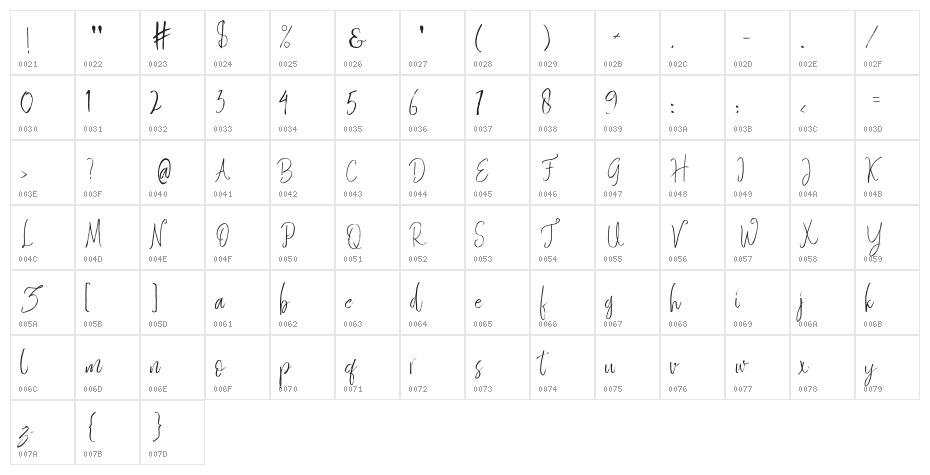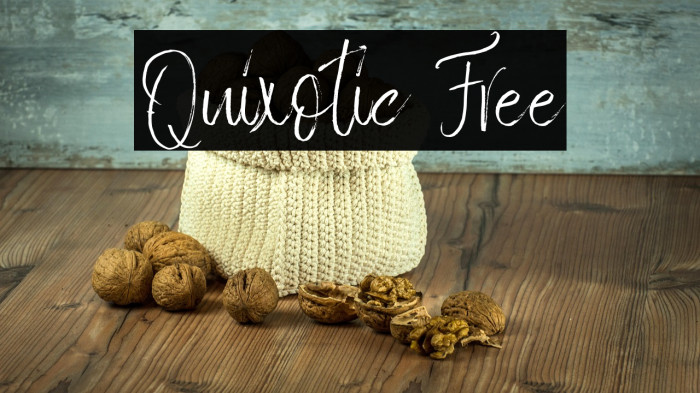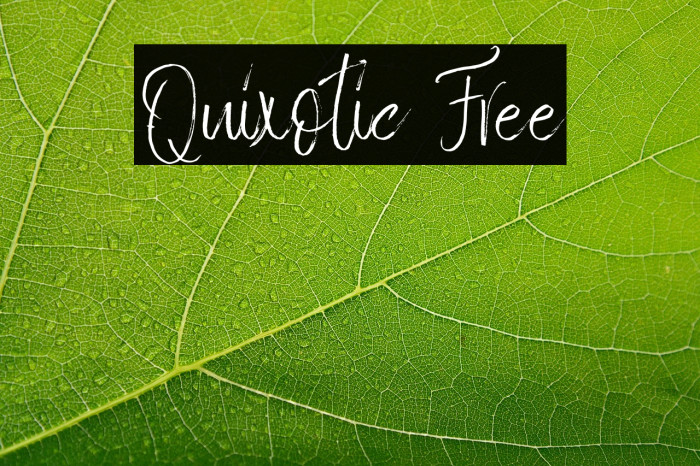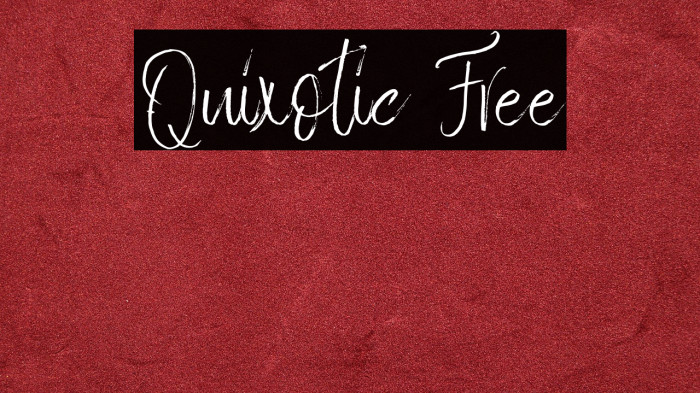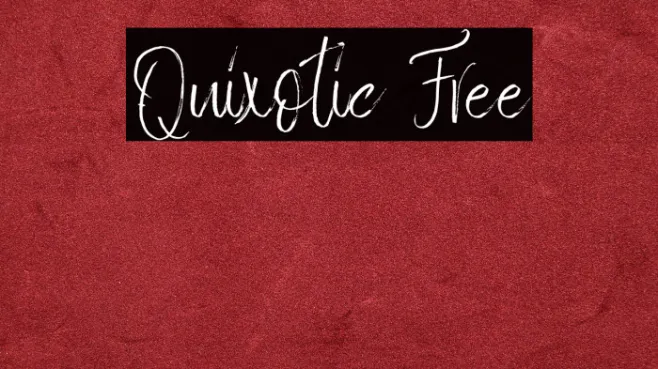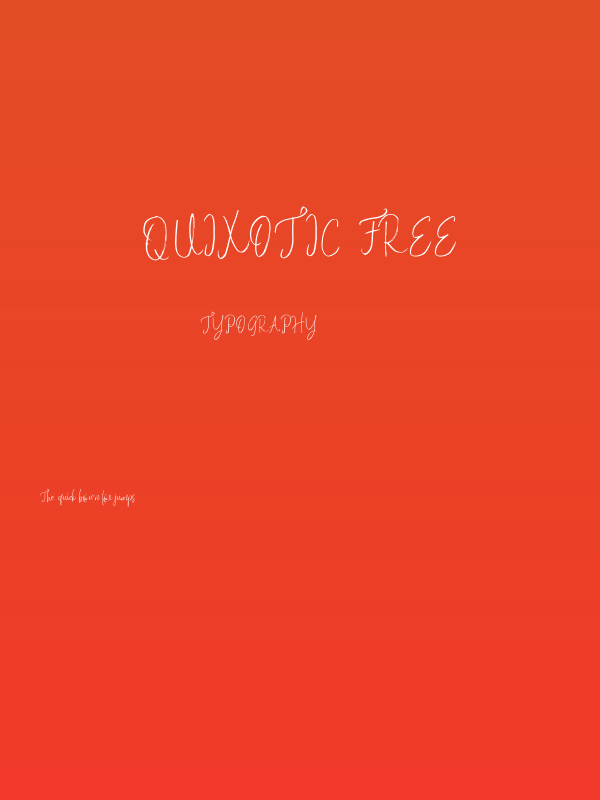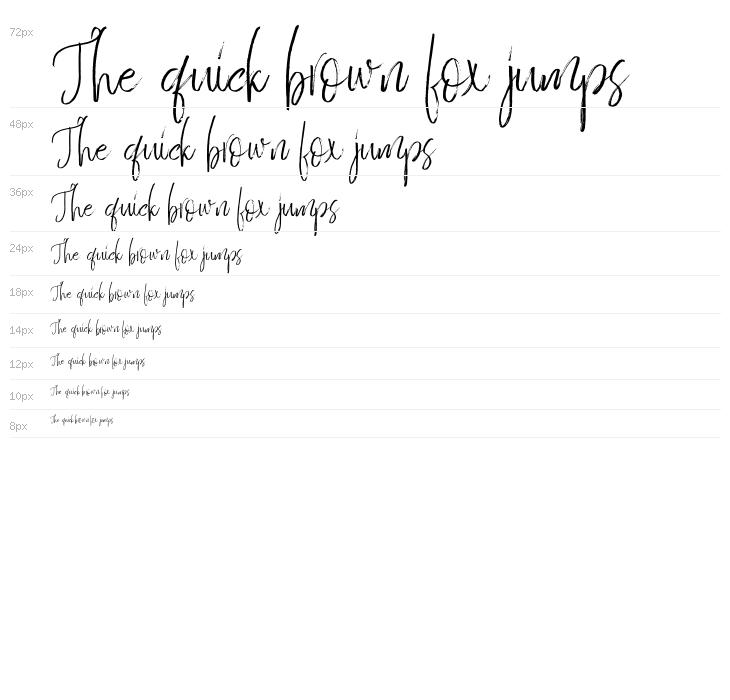
Quixotic Free Font
This font exudes a whimsical and artistic flair, characterized by its fluid, hand-drawn strokes that mimic the natural flow of handwriting. The uppercase letters are tall and elegant, with a slight slant that adds a sense of movement and dynamism. The lowercase letters are equally expressive, featuring loops and curves that enhance the font's playful nature. Numbers and special characters maintain this artistic style, ensuring consistency across all elements. The overall appearance is both sophisticated and approachable, making it suitable for creative projects that require a personal touch.
Use CaseLogos, Invitations, Artistic projects
Proposed ProjectsIdeal for wedding invitations, greeting cards, artistic branding, and creative social media graphics.